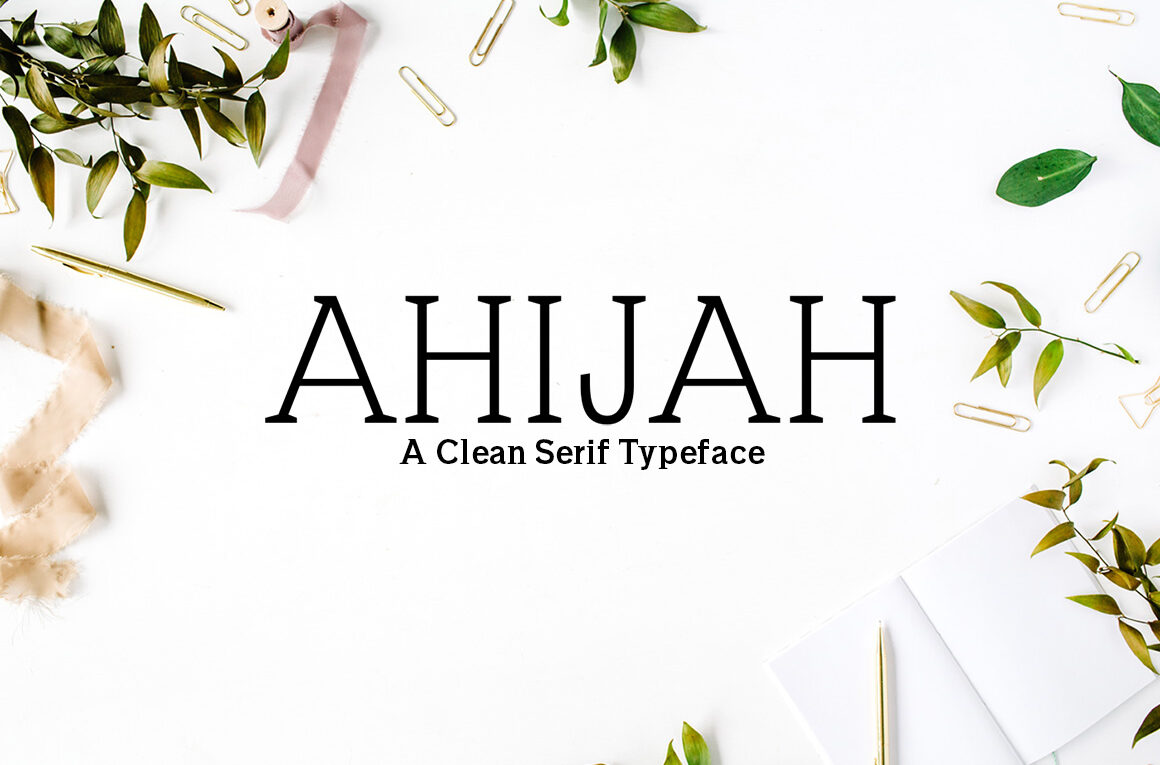
Discover the Elegance of Ahijah Font: A Clean and Minimal Serif Typeface
In the world of typography, fonts play a crucial role in conveying messages, expressing emotions, and creating visual identities. For designers and crafters, finding the perfect font can be a daunting task, especially when it comes to balancing classic and modern appeal. This is where Ahijah Font comes into play, a clean and minimal serif typeface that seamlessly fuses traditional and contemporary design elements.
The Ahijah Font Advantage: A Great Fusion of Classic and Modern Appeal
Ahijah Font boasts a unique blend of classic and modern features, making it an excellent addition to any design project. Its monoline appeal and clean weight ensure that it remains versatile and adaptable, suitable for a wide range of applications. Whether you’re working on a branding project, a website, or a craft project, Ahijah Font is an excellent choice.
Key Features of Ahijah Font
- Clean and Minimal Design: Ahijah Font features a clean and minimal design, making it perfect for designers who prefer a subtle yet elegant look.
- Serif Typeface: As a serif typeface, Ahijah Font adds a touch of sophistication and classic appeal to any design project.
- Monoline Appeal: The monoline appeal of Ahijah Font ensures that it remains versatile and adaptable, suitable for a wide range of applications.
- Clean Weight: The clean weight of Ahijah Font makes it easy to read and understand, even at smaller font sizes.
Why Choose Ahijah Font?
There are several reasons why Ahijah Font stands out from the crowd:
- Uniqueness: Ahijah Font offers a unique blend of classic and modern features, making it an excellent choice for designers who want to create a distinctive visual identity.
- Versatility: The monoline appeal and clean weight of Ahijah Font make it suitable for a wide range of applications, from branding and advertising to web design and crafting.
- Elegance: Ahijah Font exudes elegance and sophistication, making it perfect for designers who want to create a high-end visual identity.
Applications of Ahijah Font
Ahijah Font is an incredibly versatile typeface that can be used in a variety of applications, including:
- Branding and Advertising: Ahijah Font is perfect for creating a distinctive visual identity for brands, products, and services.
- Web Design: The clean and minimal design of Ahijah Font makes it an excellent choice for web designers who want to create a modern and elegant website.
- Crafting and DIY Projects: Ahijah Font is also suitable for crafters and DIY enthusiasts who want to add a touch of elegance and sophistication to their projects.
Adding Ahijah Font to Your Collection
If you’re looking to add a clean and minimal serif typeface to your font collection, Ahijah Font is an excellent choice. With its unique blend of classic and modern appeal, Ahijah Font is sure to become a staple in your design toolkit.
In conclusion, Ahijah Font is a clean and minimal serif typeface that offers a great fusion of classic and modern appeal. Its monoline appeal and clean weight make it perfect for a large number of applications, from branding and advertising to web design and crafting. With its uniqueness, versatility, and elegance, Ahijah Font is an excellent addition to any design project.